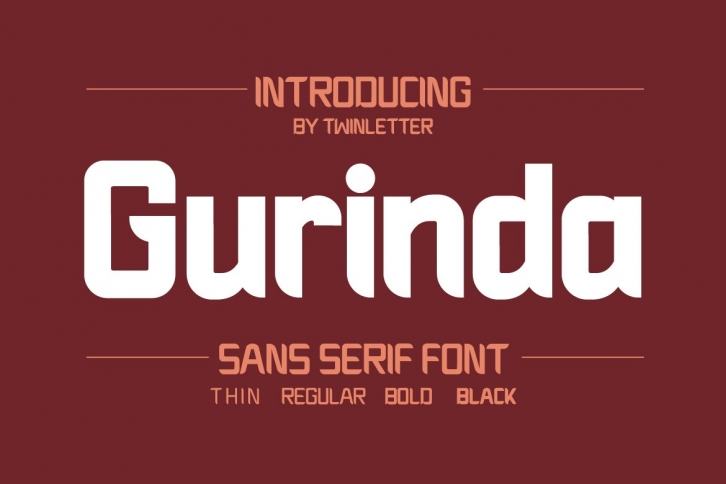
Gurinda is a trendy and unique font with an authentic style. It was designed by twinlettertype and it's a great choice for creative people who need such a font. It was released on February 2, 2022 and the file size is 10.62 MB. Gurinda will add an organic vibe to any design idea!